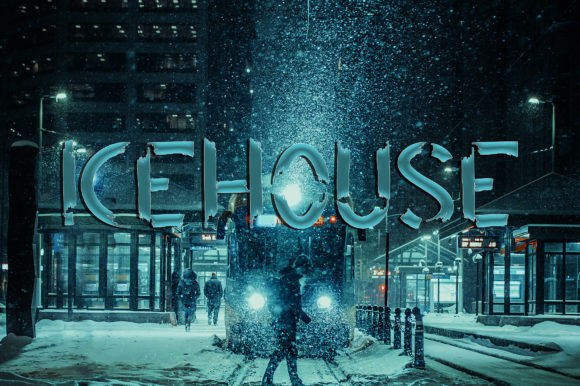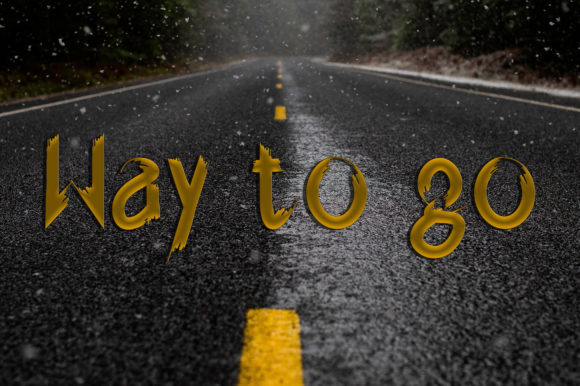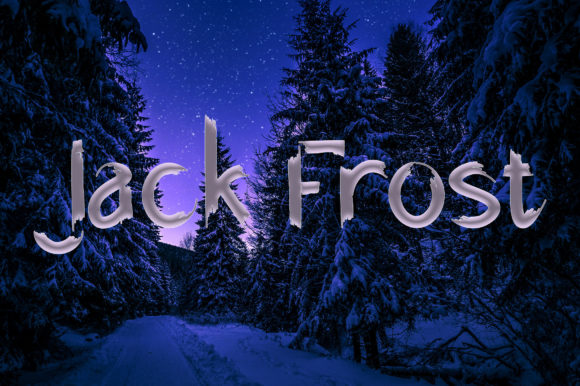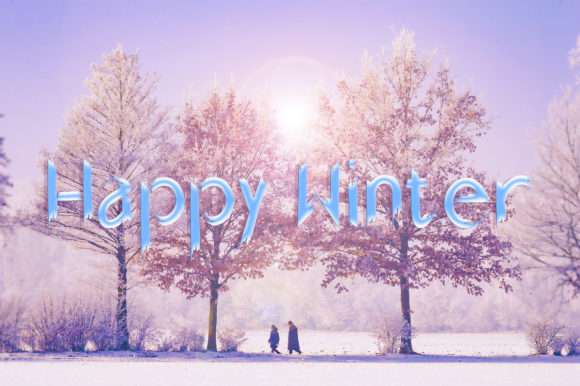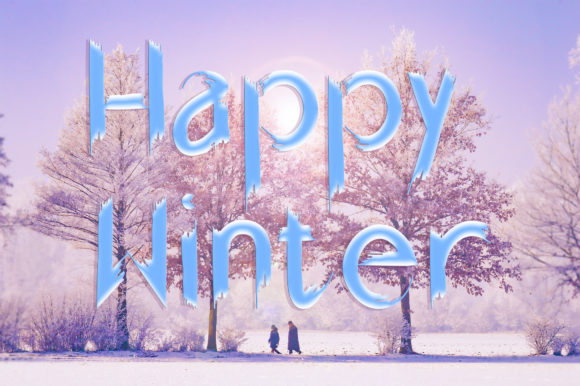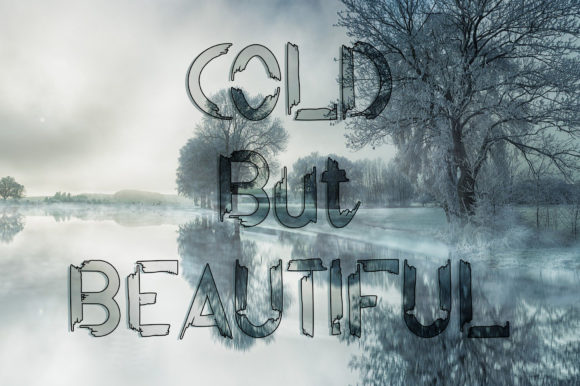
Introduction to Icehouse Font
Icehouse is a cool and thick lettered display font.
No matter the topic, this font will be an incredibly asset to your fontsโ library, as it has the potential to elevate any creation .
Key Features of Icehouse Font